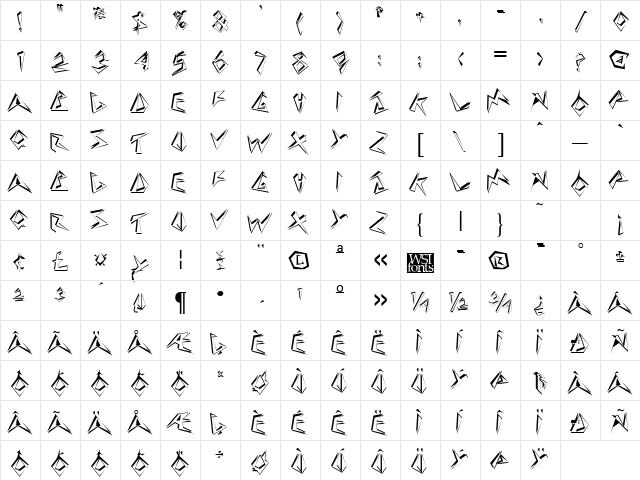
StingerShadow Regular
Design Context for StingerShadow Typeface
StingerShadow is built around its visual character rather than neutral utility — its distinctive forms are designed to make an impression at display sizes.
Font Pairing: Pair with a clean neutral sans-serif for body copy to let StingerShadow's character lead without overwhelming the composition.
Pro Tip: Treat StingerShadow as the centrepiece of your typographic hierarchy. One strong heading set in a decorative face can carry an entire layout.